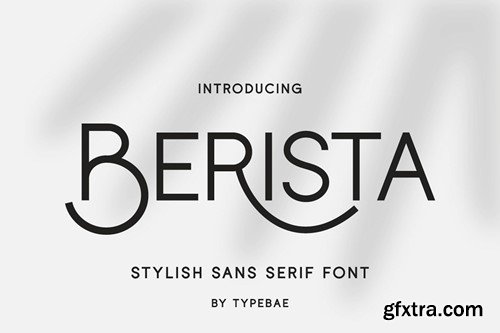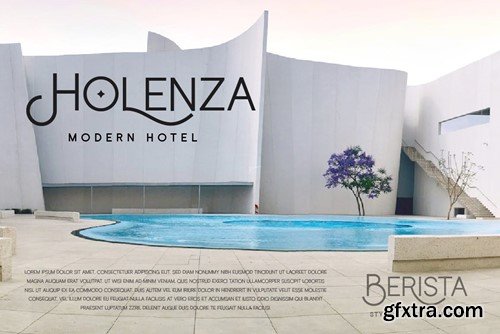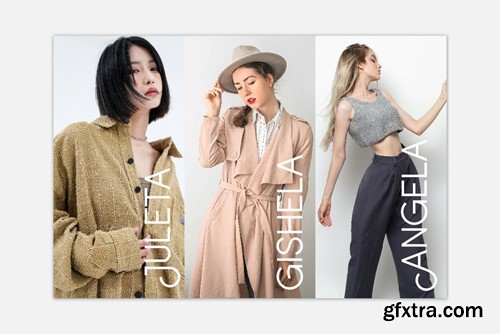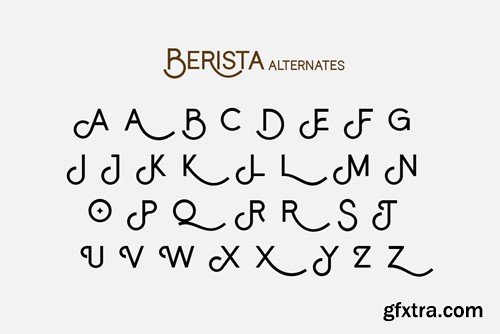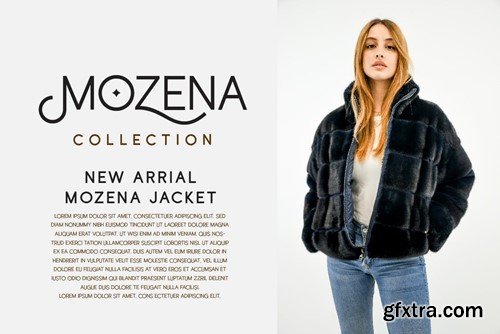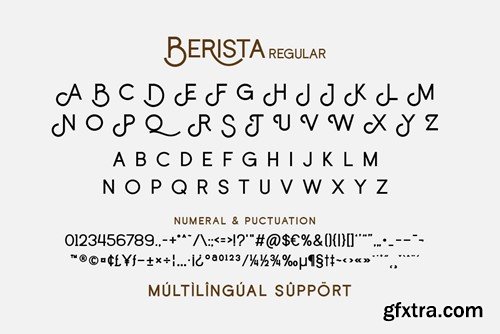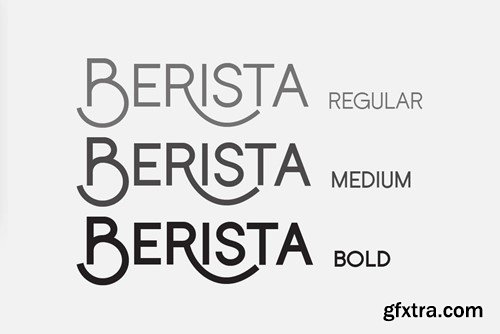
贝丽斯塔时尚字体 QL2S7DD
Berista Stylish Font QL2S7DD
Berista Stylish Font
Berista is a stylish and elegant sans serif font. It can easily be matched to an incredibly large set of projects, so add it to your creative ideas and notice how it makes them stand out!
Features:
• Full alphabet
• Numbers, fractions
• Punctuation and symbols
• Stylistic Alternates
• Multilingual support